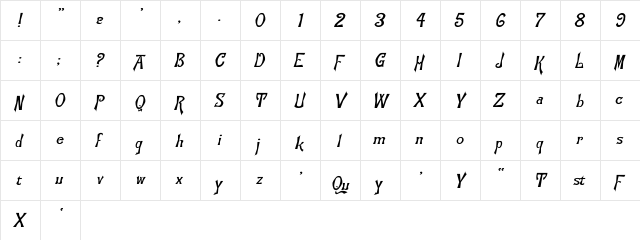
Flemish-Normal-Italic Regular
Design Context for Flemish-Normal-Italic Typeface
Flemish-Normal-Italic offers clean, dependable letterforms without strong stylistic allegiance, making it a practical choice for designers who need flexibility. Its italic angle brings a sense of urgency and motion to the letterforms.
Pro Tip: Try Flemish-Normal-Italic for annotation and caption copy alongside an upright companion — the contrast in angle creates a dynamic but ordered typographic system.